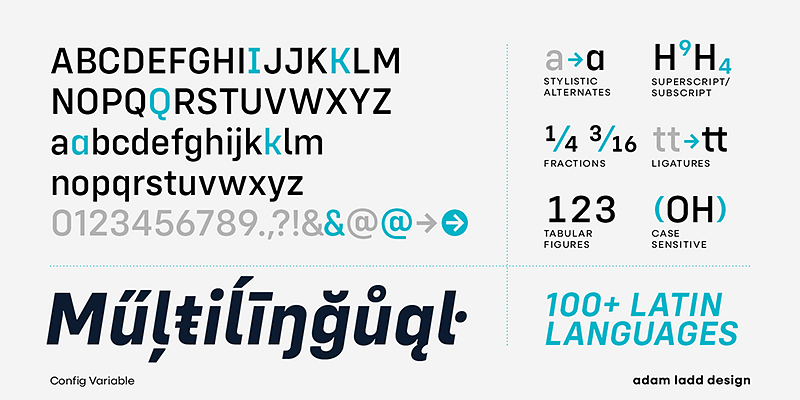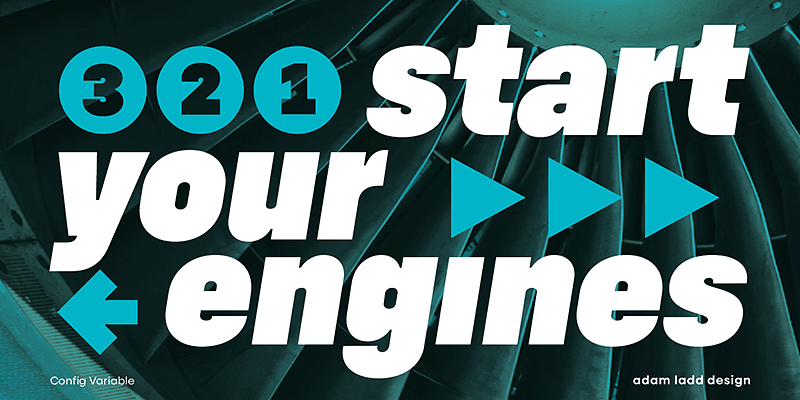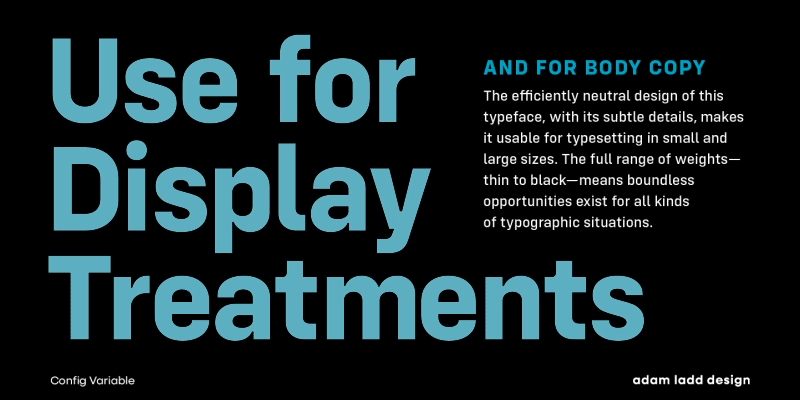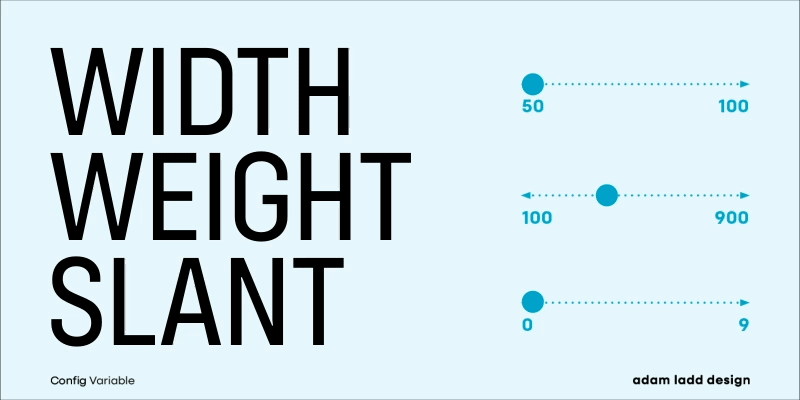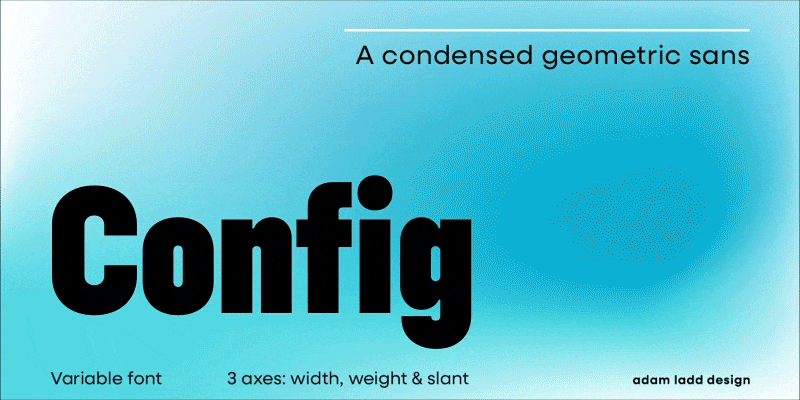
Config is a geometric sans family in the style of other industrial typefaces. The design was influenced by geometric sans serifs with circular forms on the tops and bottoms of characters. Still, the proportions have been condensed by incorporating straight sides for a sturdy and space-saving design. This typeface’s efficiently neutral, friendly design and subtle details make it functional for text and display sizes. The options are endless, with 40 styles across 10 weights, plus italics.
With an emphasis on typefaces designed to be useful and unique, Adam Ladd crafts fonts with a diverse appeal that ranges across modern and vintage aesthetics in sans serif, serif, and script styles. His experience as art director at two of the most revered design publications — HOW and PRINT magazines — informs his work as a type designer. Individuals and large companies in many industries have licensed his fonts, including Disney, Whole Foods, Blizzard Entertainment, and Penguin Random House.